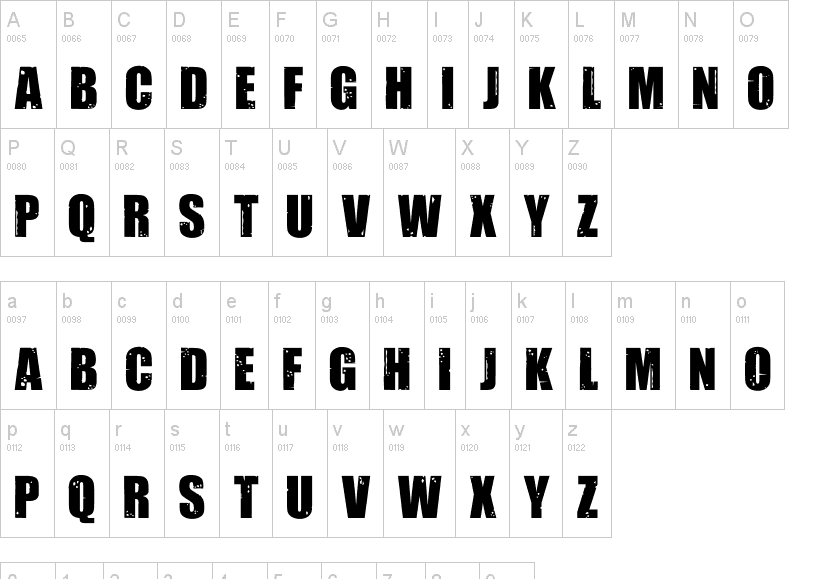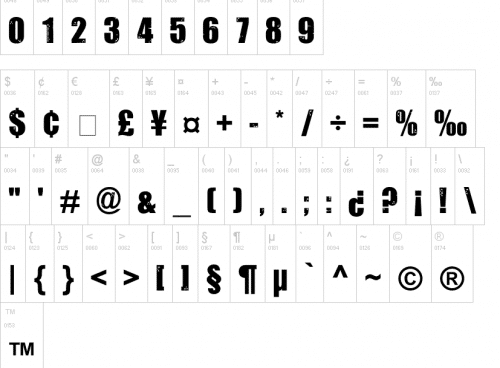
Thanks to all who have downloaded Impacted – even more thanks if you’ve donated! I’ve seen it in use all over the world! Impacted 2.0 is improved, with a second upper case character set with different defects in the lower case space. Enjoy… and if you’re using the font commercially, please donate. (I’m looking at you, Channel 10 Brisbane!)
- Designer: Foxy Fonts